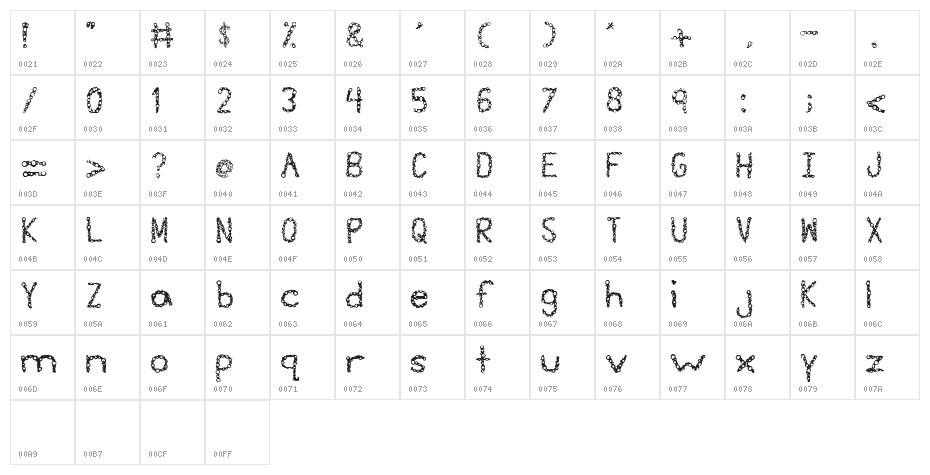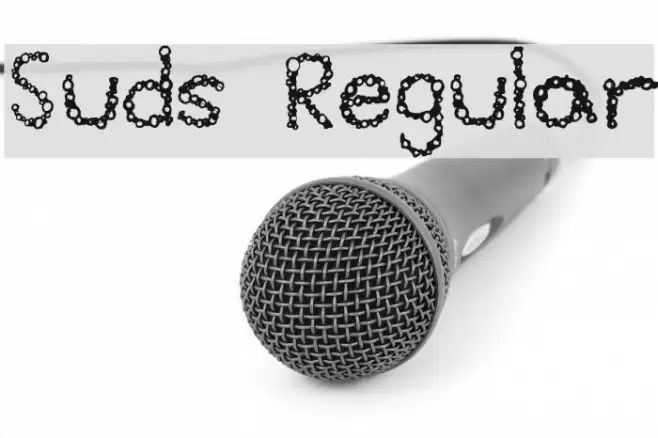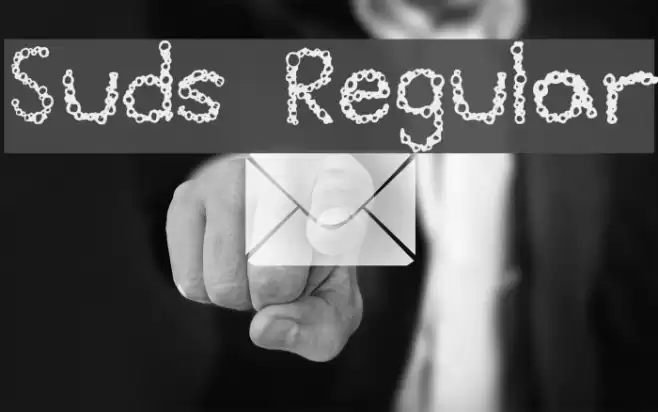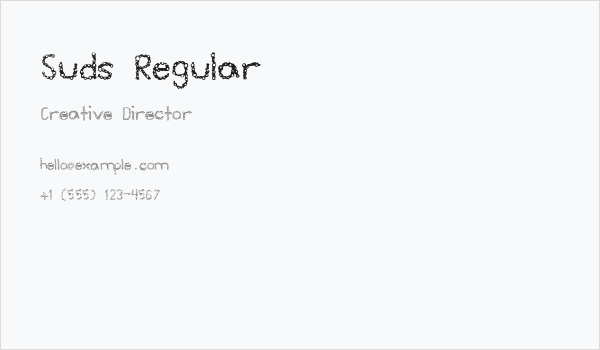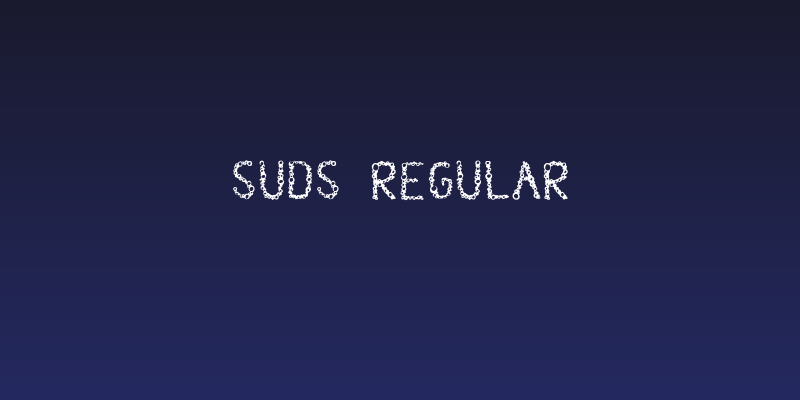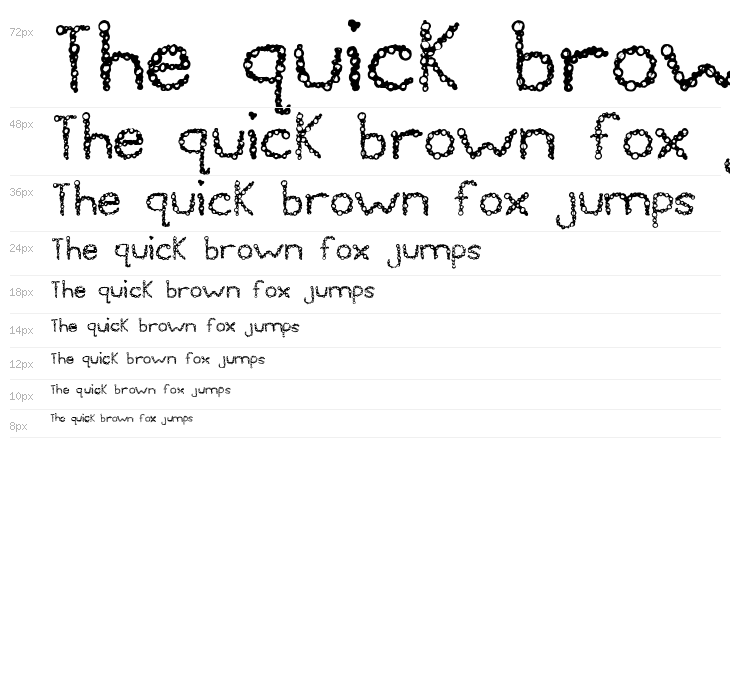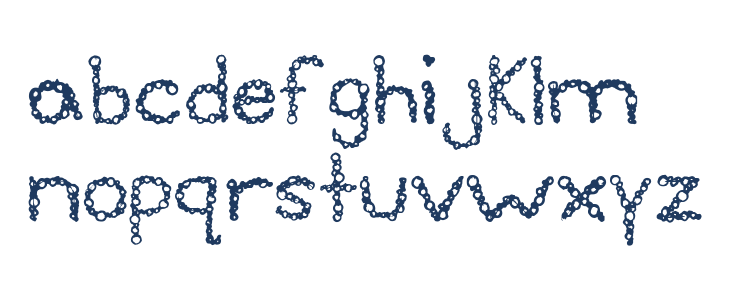
Suds Regular Font
Suds Regular Description
This playful and whimsical font features characters composed of interconnected bubbles, creating a unique and eye-catching appearance. Each letter and number is crafted with a series of circular shapes that give the font a bubbly and lighthearted feel. The font maintains a consistent structure across both uppercase and lowercase letters, as well as numbers and special characters. Its distinctive style makes it stand out, offering a fun and informal aesthetic that is perfect for creative projects. The font's design is both intricate and approachable, making it suitable for a variety of uses where a touch of whimsy is desired.
| Overall Style | Whimsical |
| Use Case | Logos, Posters, Invitations |